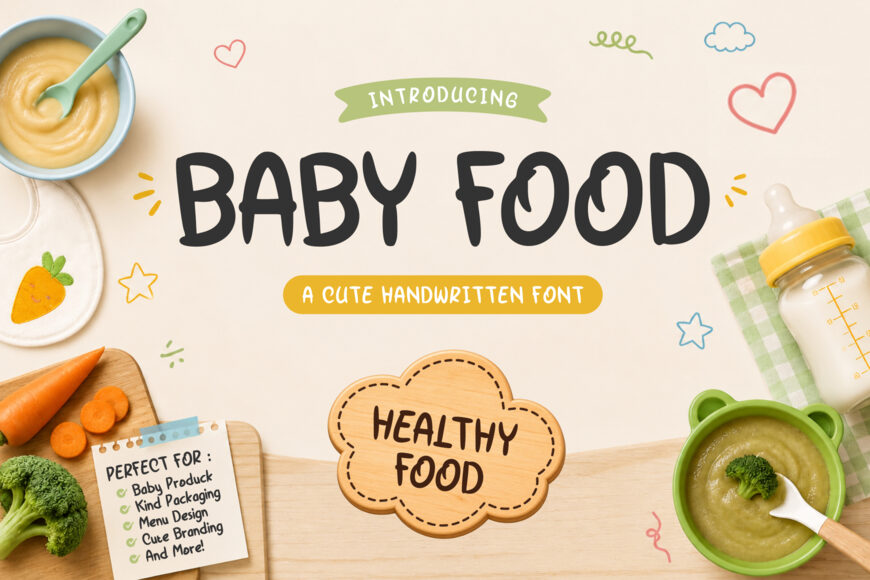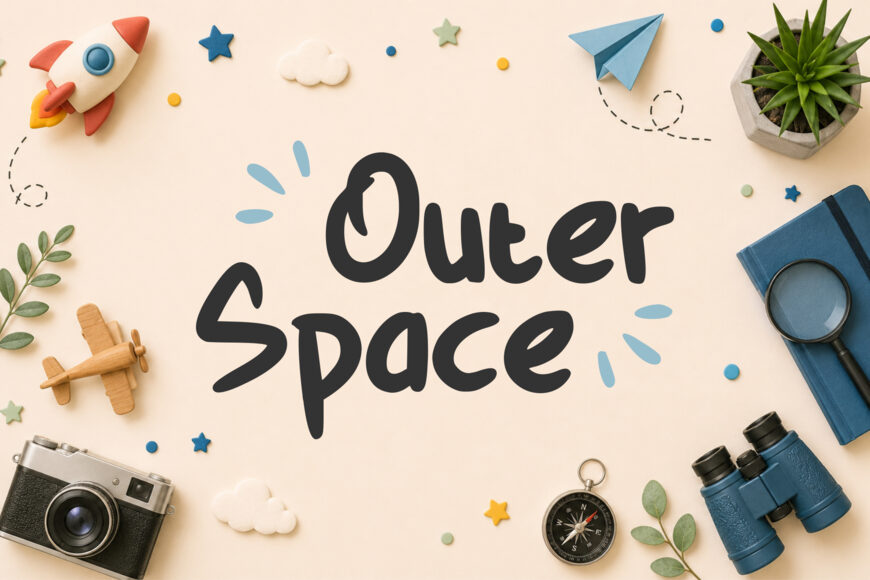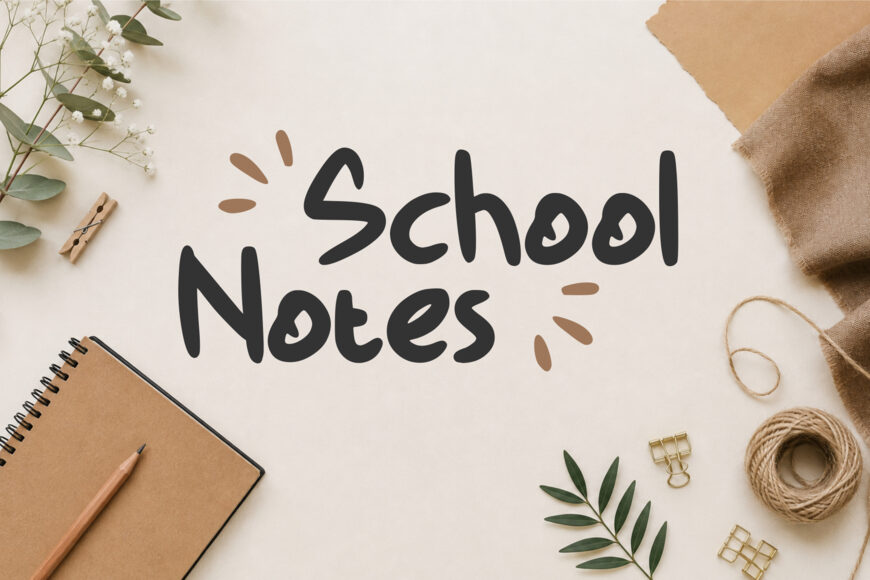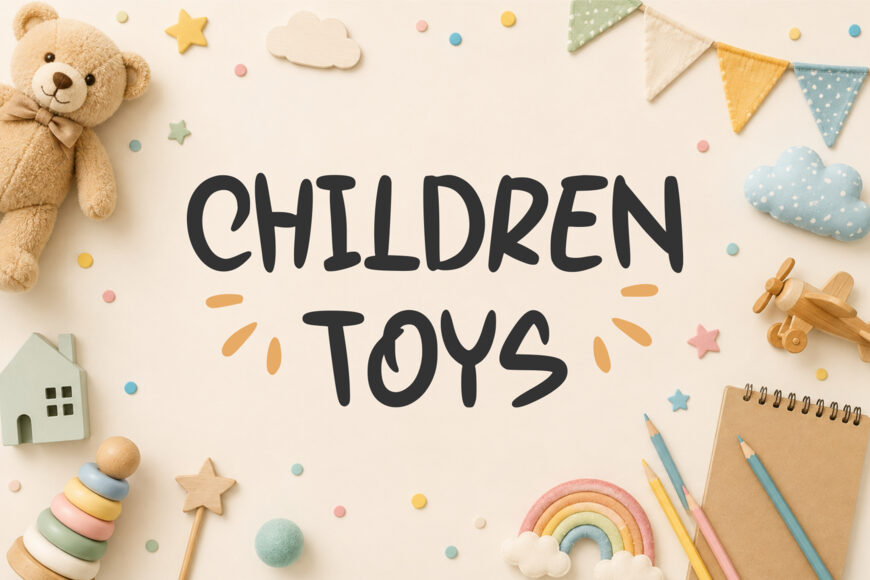
Baby Food is a fun, bold, and playful handwritten typeface designed to bring a warm and cheerful personality to your creative projects. Its chunky letterforms and friendly character make it perfect for kids’ designs, baby products, food packaging, children’s books, nursery branding, menus, invitations, stickers, labels, social media graphics, and playful branding.